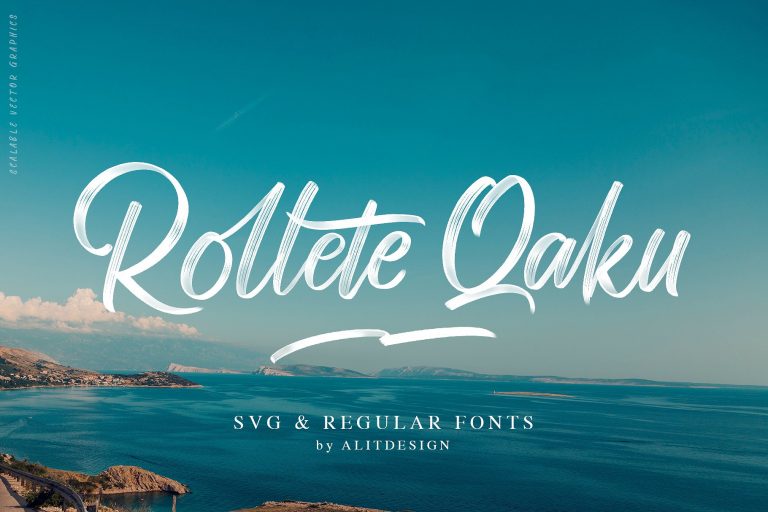
Rollete Qaku Brush Font
Continue to be a free font package a solid brush font. Introducing Rollete Qaku Font. It is designed and shared by alit design. Yeah .. Brush script with shadow in SVG format is amazing font for lettering design like a quote word design, adventure design, sporty design and any more of have energetic concept. In addition to SVG format that has a natural shadow and texture, you will also get a regular format of course vector soild that has unlimited size. with regular format you can be creative using standard design applications such as adobe illustrator or others